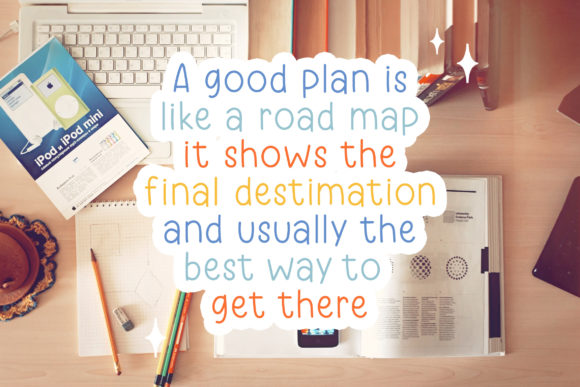
Introducing Life Planner Duo Font: The Ultimate Sans Serif for Creative Projects
In the world of typography, fonts play a crucial role in conveying messages, expressing emotions, and creating visual identities. For designers, artists, and creatives, finding the perfect font can be a daunting task. However, if you’re looking for a minimal and neat sans serif font that can elevate your projects, look no further than Life Planner Duo Font. In this article, we’ll explore the features, benefits, and uses of Life Planner Duo, and why it’s an excellent addition to your creative toolkit.
What is Life Planner Duo Font?
Life Planner Duo Font is a modern sans serif font designed to be versatile, clean, and highly legible. Its simplicity and neatness make it an excellent choice for a wide range of projects, from digital designs to print materials. The font’s minimalistic approach ensures that it can be paired with various design styles, making it a perfect fit for creative ideas that require a touch of elegance and sophistication.
Key Features of Life Planner Duo Font
- Minimal and Neat Design: Life Planner Duo boasts a clean and simple design, making it perfect for projects that require a subtle yet effective typography.
- Sans Serif Style: The font’s sans serif style ensures that it’s highly legible, even at small font sizes, making it ideal for body text and headings.
- Highly Versatile: Life Planner Duo can be used in a wide range of projects, from digital designs, such as websites and social media graphics, to print materials, like brochures and posters.
- Easily Readable: The font’s clear and concise design makes it easy to read, even for extended periods.
Benefits of Using Life Planner Duo Font
Using Life Planner Duo Font in your creative projects offers numerous benefits. Here are a few:
- Enhances Readability: The font’s clear design ensures that your text is easily readable, making it perfect for body text, headings, and titles.
- Boosts Visual Appeal: Life Planner Duo’s minimalistic approach and clean lines add a touch of elegance and sophistication to your designs.
- Increases Versatility: The font’s versatility allows you to use it in various projects, from digital designs to print materials, without worrying about it looking out of place.
- Streamlines Design Process: With Life Planner Duo, you can quickly and easily create professional-looking designs, saving you time and effort.
Creative Projects that Suit Life Planner Duo Font
Life Planner Duo Font is an excellent addition to various creative projects. Here are a few examples:
- Websites and Blogs: Use Life Planner Duo as your website’s font to create a clean, modern, and professional look.
- Social Media Graphics: The font’s clear design makes it perfect for social media graphics, such as Facebook posts, Instagram captions, and Twitter headers.
- Print Materials: Life Planner Duo is suitable for print materials, like brochures, posters, flyers, and business cards.
- Digital Art and Illustrations: The font’s minimalistic approach makes it an excellent choice for digital art and illustrations.
Tips for Using Life Planner Duo Font Effectively
To get the most out of Life Planner Duo Font, here are a few tips:
- Pair it with Other Fonts: Experiment with pairing Life Planner Duo with other fonts to create a unique and visually appealing design.
- Adjust Font Sizes: Use different font sizes to create a hierarchy of information and add visual interest to your design.
- Play with Colors: Life Planner Duo looks great in various colors, so don’t be afraid to experiment and find the perfect color scheme for your design.
Life Planner Duo Font is a versatile, clean, and highly legible sans serif font that’s perfect for a wide range of creative projects. Its minimalistic approach and neat design make it an excellent choice for designers, artists, and creatives looking to add a touch of elegance and sophistication to their work. With its numerous benefits, versatility, and ease of use, Life Planner Duo Font is an excellent addition to your creative toolkit.